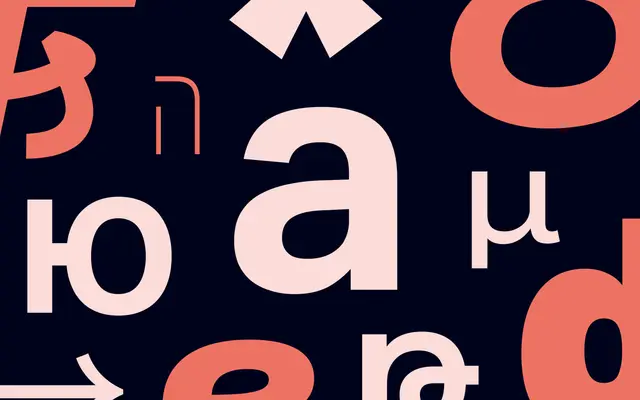
Aktiv Grotesk
Dalton Maag · Bruno Maag, Sahar Afshar, Alex Blattmann, Pilar Cano, Fernando Caro, Emanuela Conidi, Kalapi Gajjar, Pablo Gámez, Fabio Haag, Michele Patanè, Jonny Pinhorn, Diogo Rapazote, Samir Reis, José Solé, Spike Spondike, Andrés Torresi · 2010
A grotesque sans workhorse with Weight, Width and Italic variable axes and support for ten global writing systems.
Dalton Maag's Aktiv Grotesk is a grotesque sans typeface offered as a 3-axis variable font with Hairline to Black weights, Condensed to Extended widths and matching italics, totalling 54 static styles. Drawn over 2010 to 2025 by Bruno Maag with a large team including Sahar Afshar, Pilar Cano, Emanuela Conidi, Fabio Haag and Michele Patanè, it covers Arabic, Armenian, Cyrillic, Devanagari, Georgian, Greek, Hebrew, Latin, Latin Extended, Malayalam and Thai across more than 1,380 languages. The page describes asymmetrical terminal cuts, slanted bottom terminals, monolinear modulation and moderately closed apertures, and the family ships with an extensive icon set.
Dalton Maag describes Aktiv Grotesk as a grotesque sans typeface with Weight, Width and Italic variable font axes, designed and developed 2010 to 2025. The page lists asymmetrical terminal cuts, slanted bottom terminals, even proportions, contemporary grotesque shaping, monolinear modulation and moderately closed apertures.